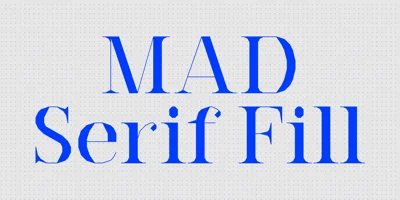
MAD Serif Fill Font
MAD Serif Fill Font is perfect for vintage poster designs, retro magazine headlines, classic book covers, theatrical productions, nostalgic branding projects, antique shop signage, historical publications, luxury product packaging, editorial design layouts, and artistic installations that require distinctive character and timeless elegance.
What makes MAD Serif Fill Font truly exciting is its bold artistic expression and unique filled design that creates stunning visual impact while maintaining classical serif sophistication. This remarkable typeface combines traditional serif elegance with contemporary design innovation, featuring solid letterforms with distinctive character shapes that command attention and convey artistic confidence. The font's dramatic presence and refined details make it perfect for projects that need to balance classical heritage with modern creative vision.
The MAD Serif Fill Font family includes multiple weights and variations: Regular, Bold, Light, Condensed, and Expanded versions. Each family member maintains the distinctive filled serif character while offering different levels of visual weight and spatial impact. The comprehensive character set supports extended typography needs and special design elements, making it versatile for both display and decorative applications.
When you choose MAD Serif Fill Font, you're selecting a typography masterpiece that transforms ordinary text into captivating visual art. This exceptional typeface excels in headline applications and display uses where maximum impact is essential, delivering outstanding readability while maintaining artistic integrity. Whether you're designing posters, book covers, branding materials, or artistic projects, this font provides the bold character and classical refinement that resonates with audiences who appreciate sophisticated design and timeless aesthetic appeal.